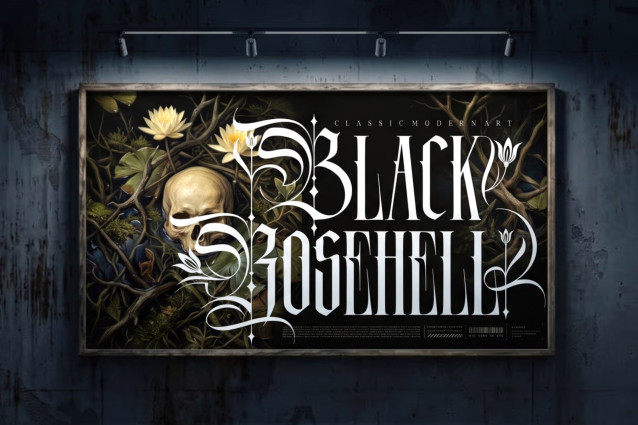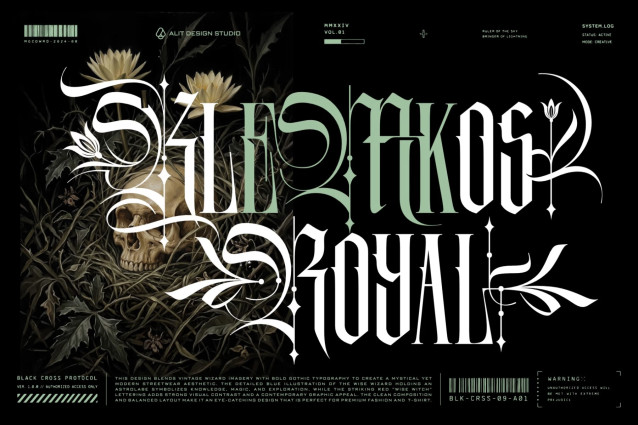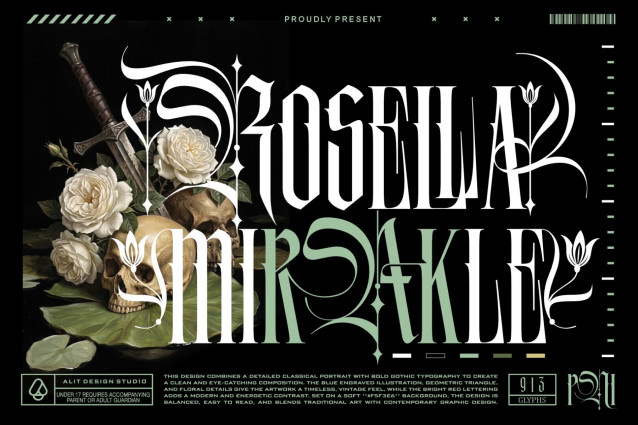
Rosella mirakle Font
Introduce Rosella Mirakle, a striking and majestic display typeface that seamlessly blends vintage gothic architecture with a modern, dark aesthetic. Inspired by medieval calligraphy, classic engravings, and occult mysticism, Rosella Mirakle commands attention with its dramatic lines, ornate flourishes, and razor-sharp detailing.
This font is carefully crafted for designers seeking a powerful visual statement. Packed with extensive stylistic sets (SS01 through SS05), intricate ligatures, and PUA-encoded characters, Rosella Mirakle offers endless creative possibilities to elevate your branding, apparel lines, album art, and poster designs.